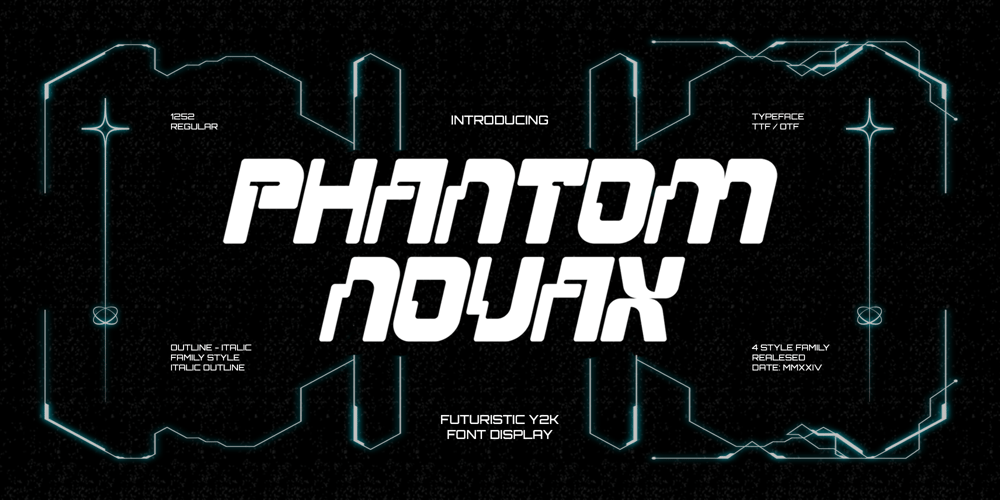
Phantom Novax Font Family was designed by Virgiawan Listanto and published by Inviline. Phantom Novax contains 4 styles and family package options. Futuristic Y2K family font brings a retro vibe to modern design, featuring bold, playful characters. Perfect for creative projects, branding, and social media, it adds a fun and nostalgic touch to any visual composition